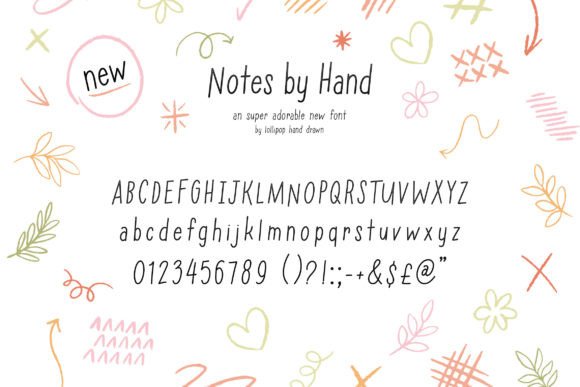
Notes by Hand Font
Notes by Hand is a sweet and quirky handwritten font. No matter the topic, this font will be an incredible asset to your fonts’ library, as it has the potential to elevate any creation.